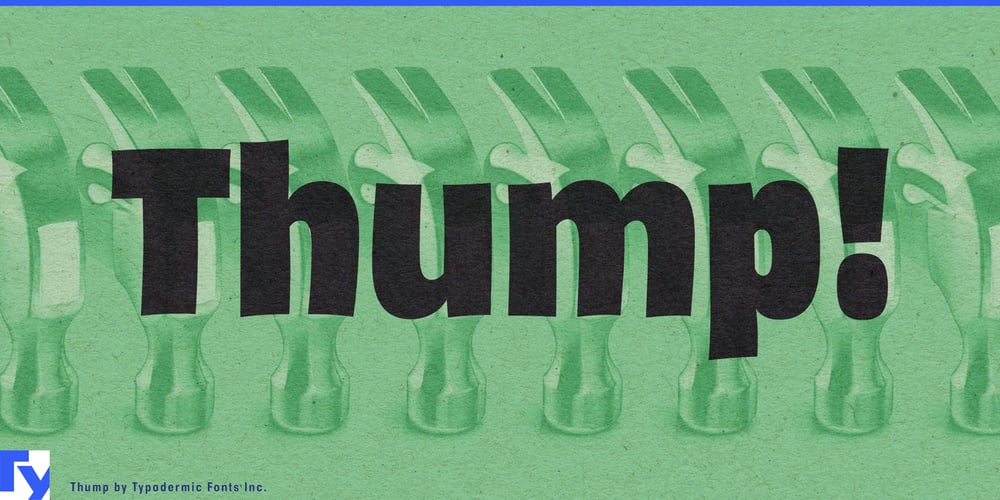
Thump Font Family was designed by Ray Larabie and published by Typodermic. Thump contains 1 styles and family package options. Get ready to feel the Thump! This is typographic earthquake that’s about to shake up your designs and leave your audience trembling with excitement. Forget whispering; Thump is here to make some noise!Picture a font that struts onto your screen with the confidence of a heavyweight champion entering the ring. That’s Thump. Its heavy letterforms don’t just demand attention; they commandeer it. But don’t let its muscular appearance fool you—Thump has a heart of gold. Its relaxed curves and friendly vibe make it the gentle giant of the font world, ready to give your projects a warm bear hug. Thump’s rich, thick strokes are like the typographic equivalent of comfort food. They add a depth and texture to your text that’s so satisfying, you’ll want to reach out and touch the screen. It’s perfect for when you need your message to land with the impact of a well-timed drumbeat.But Thump isn’t just about brawn—it’s got brains too. Thanks to some OpenType wizardry, it swaps out common letter pairs faster than a card shark, creating a hand-lettered feel that’s genuine enough to make your high school art teacher proud. It’s like having a master calligrapher on speed dial, ready to personalize every word. Thump speaks more languages than a United Nations interpreter after a triple espresso. From Albanian to Zuni, it’s ready to make your message resonate across cultures with the universally understood language of bold design.So why settle for fonts that merely speak when you can have one that roars? Download Thump today and watch as your designs transform from wallflowers to life of the party. Whether you’re crafting posters that pop, brochures that boom, or social media graphics that go viral, Thump is your ticket to the big leagues of typography. Remember, in a world full of whispers, sometimes you need to Thump. Let your designs be heard!